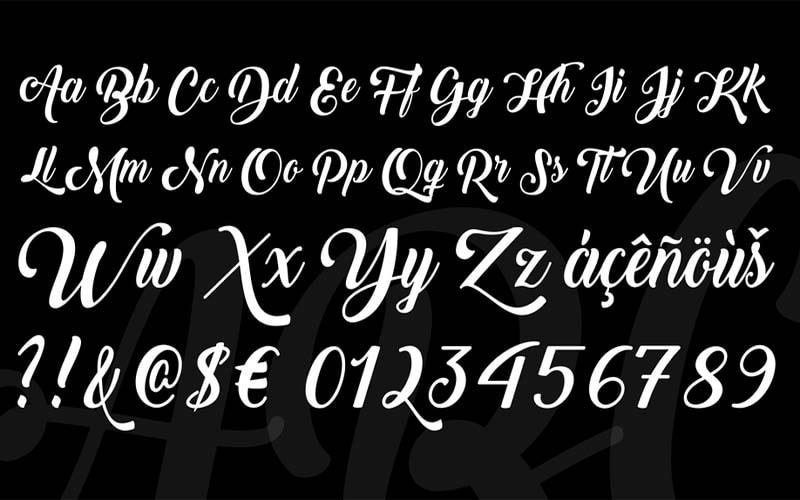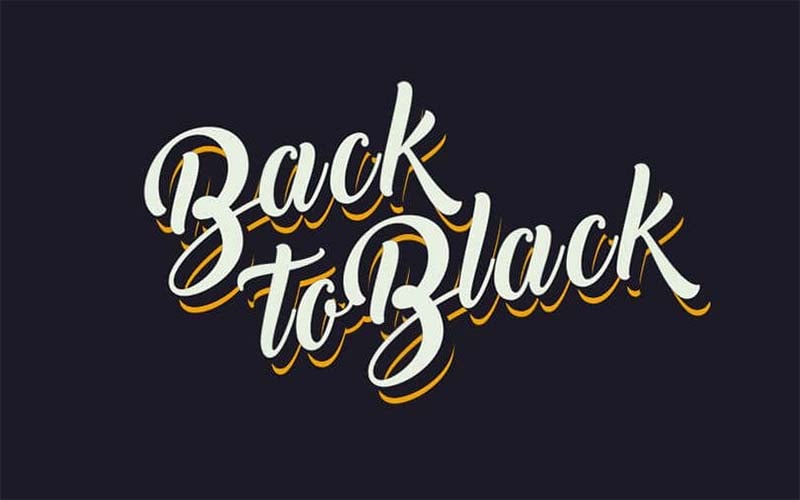
Back to Black Font is a royalty-free script and calligraphy typeface is a popular font that comes in a highly legible design and keen features. This beautiful font was created and published by Mistis Fonts.
That remarkable font is ideal for many design approaches. Such as logos designing, invitation cards, stationery, business cards, wedding designs, poster advertisements, product packaging, printing, watermarks, and special events.
It incorporates the perfect amazing texture and linear design to achieve different design methods. Generally suitable for a feature or for showing extensive textile arrangements.
Back to Black Font
Going with this decent type with a great design. It considers itself one of the most basic font families ever. Feel the power of literature while using this wonderful creation.
This script font family is very popular at any time due to its attractive look and use for long text paragraphs. It comes down to making your design more elegant and beautiful.